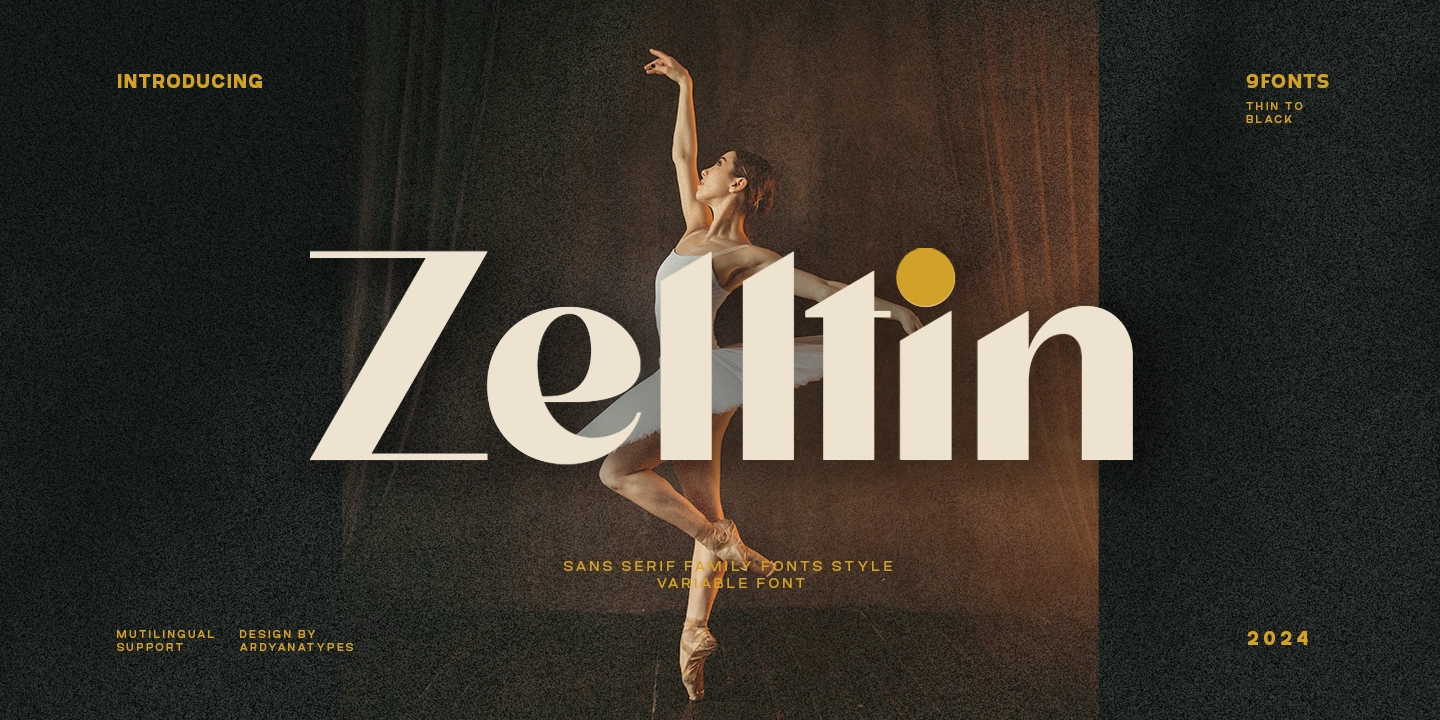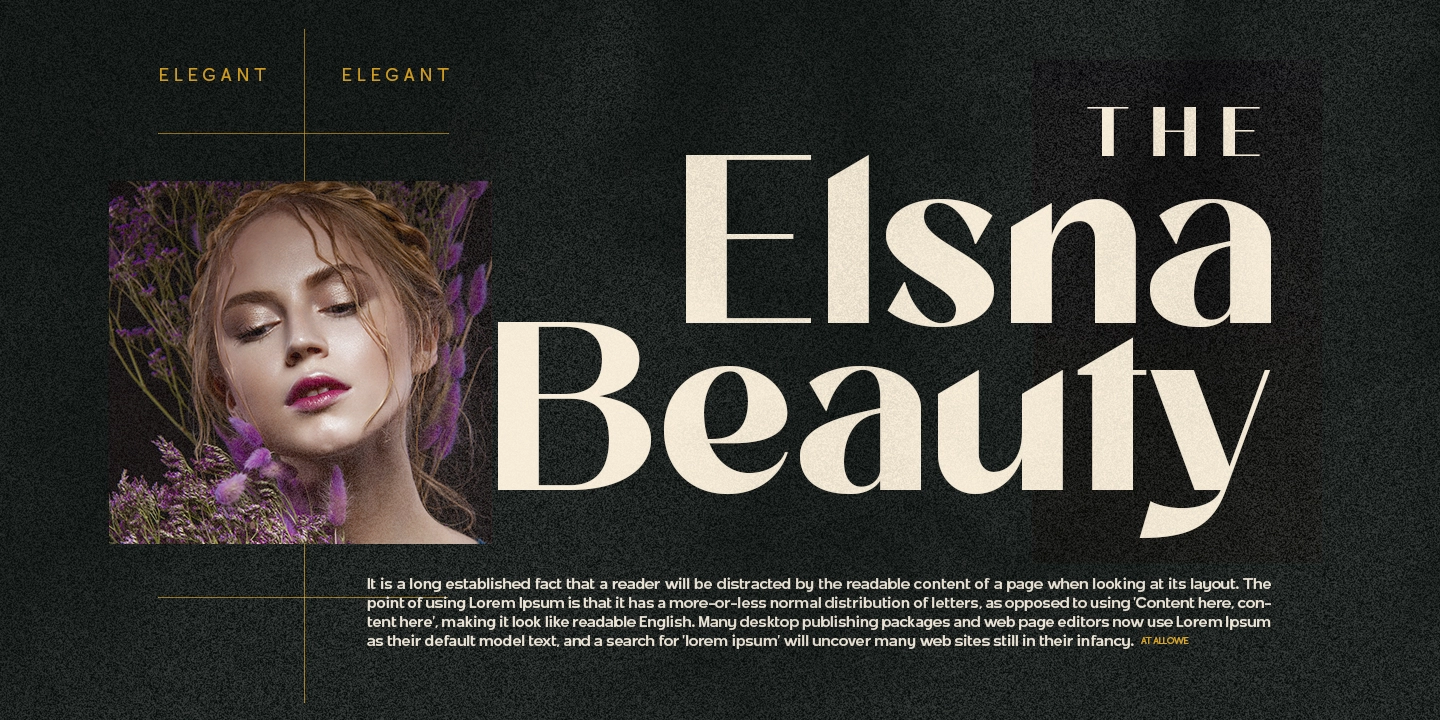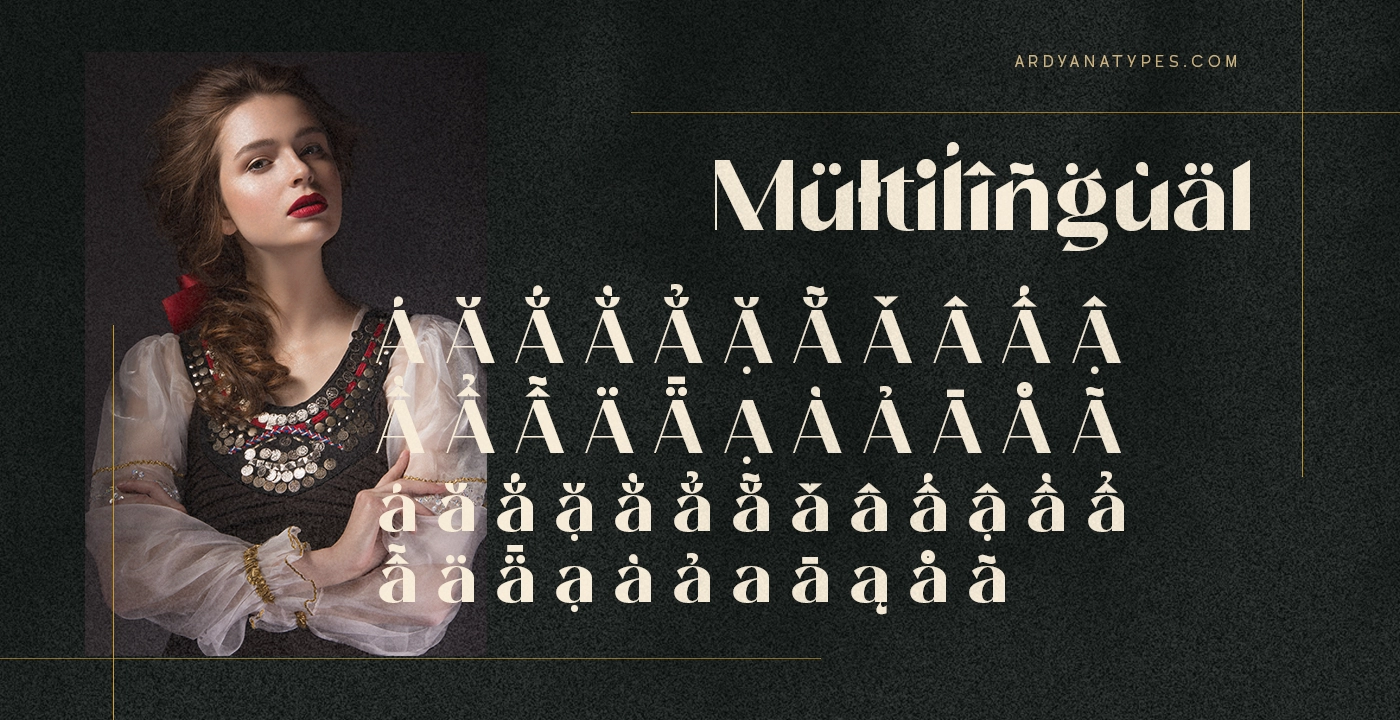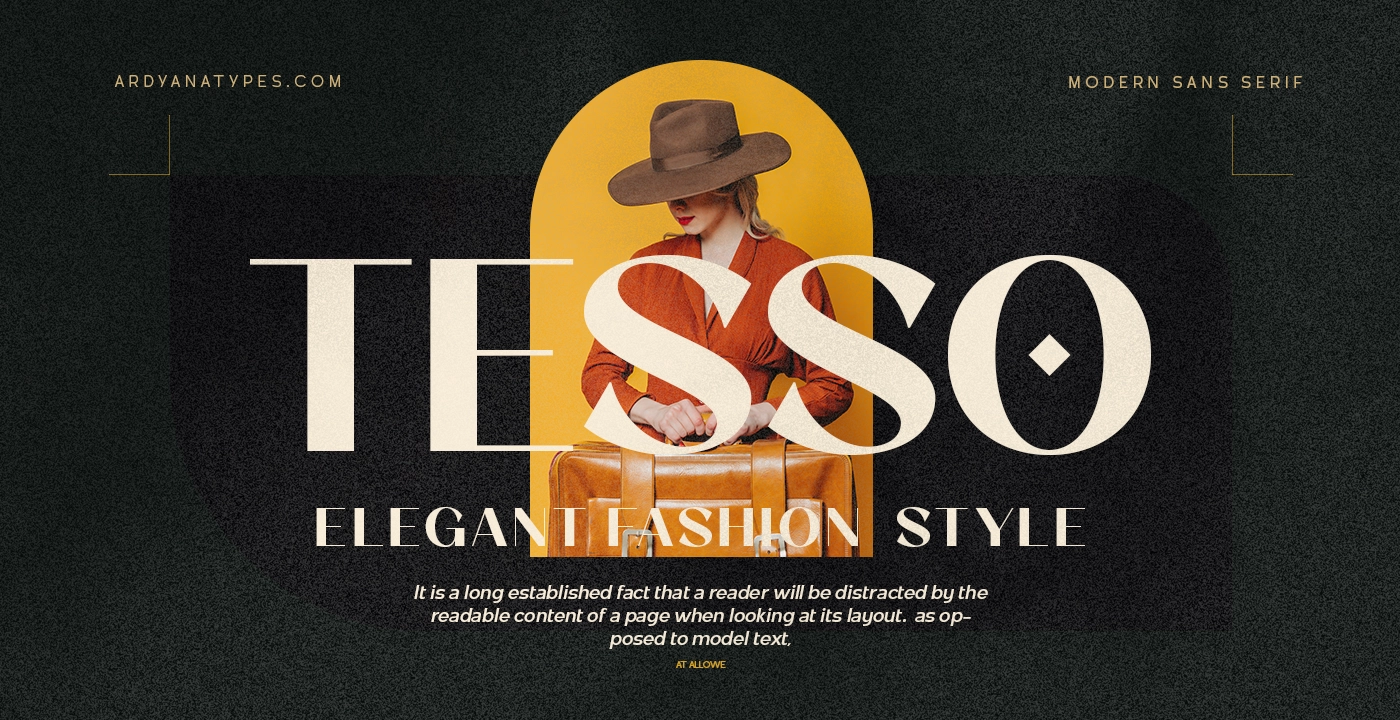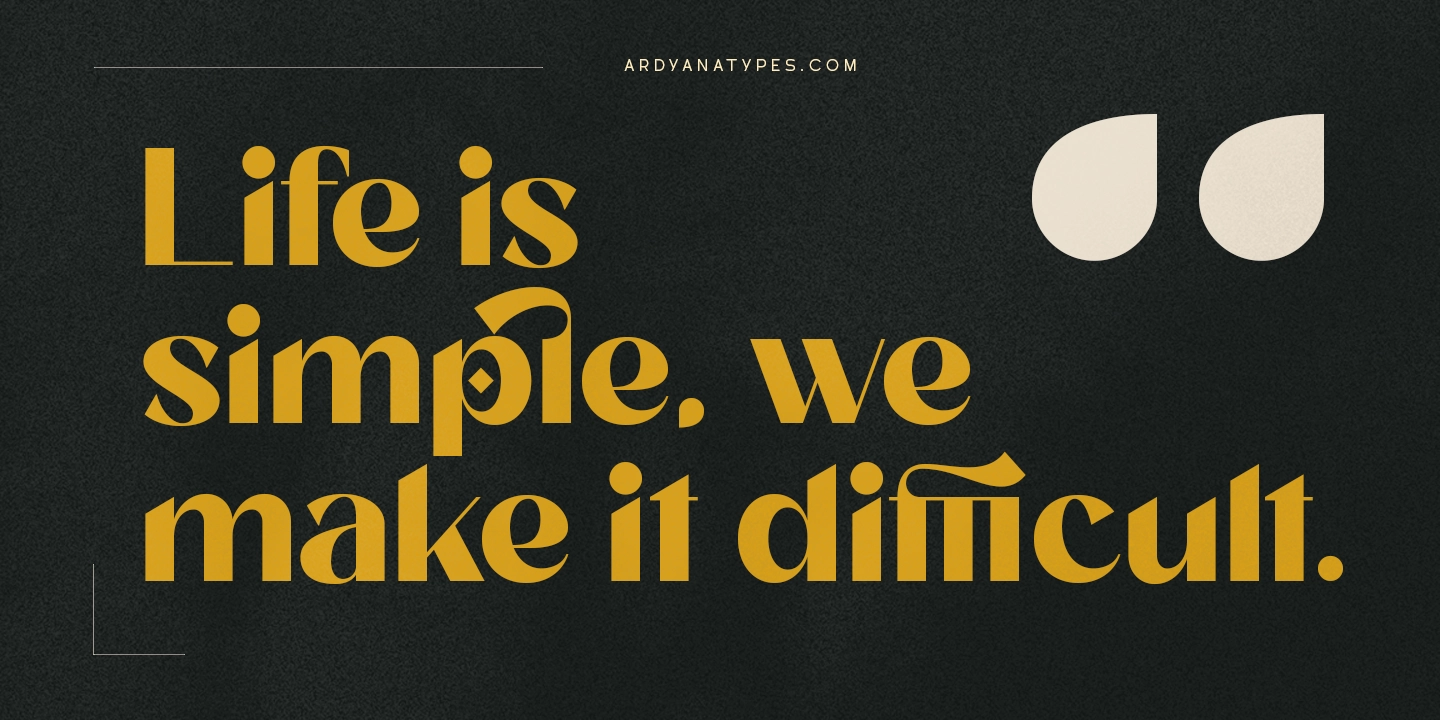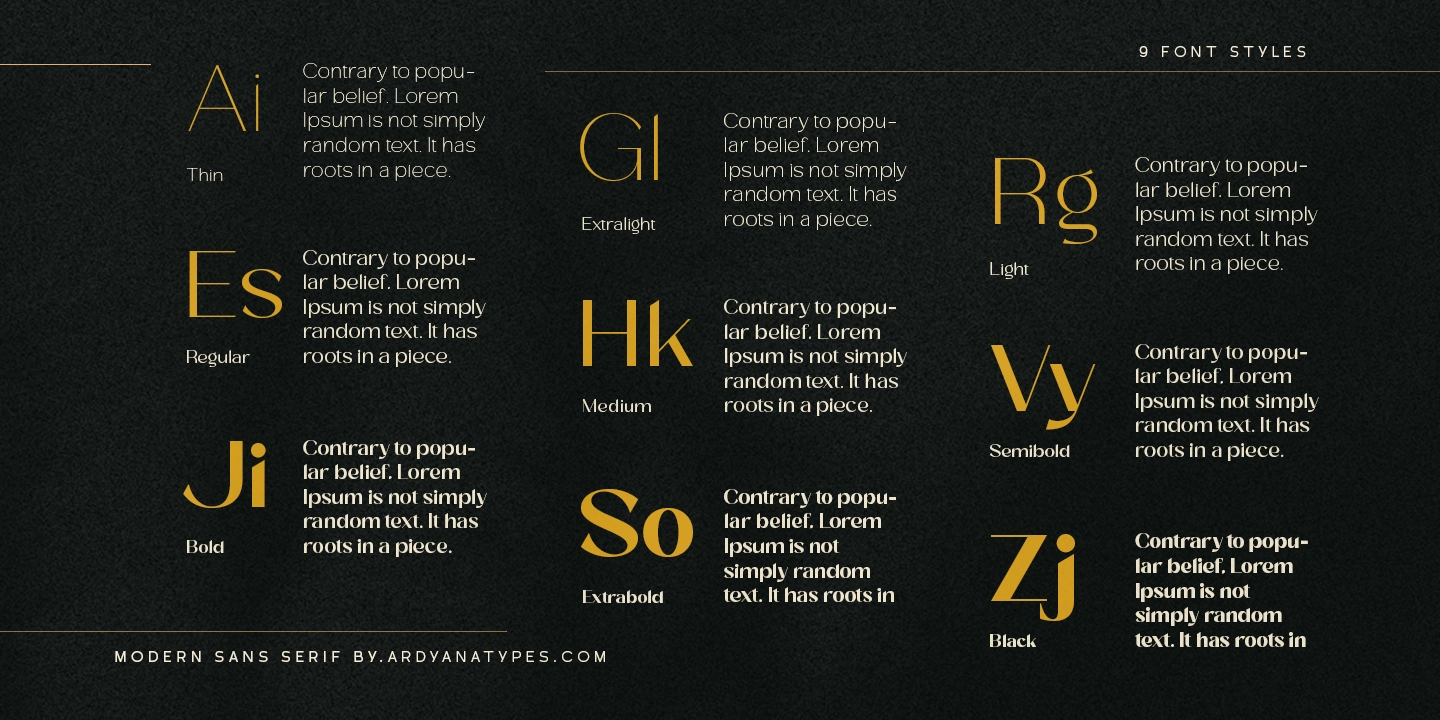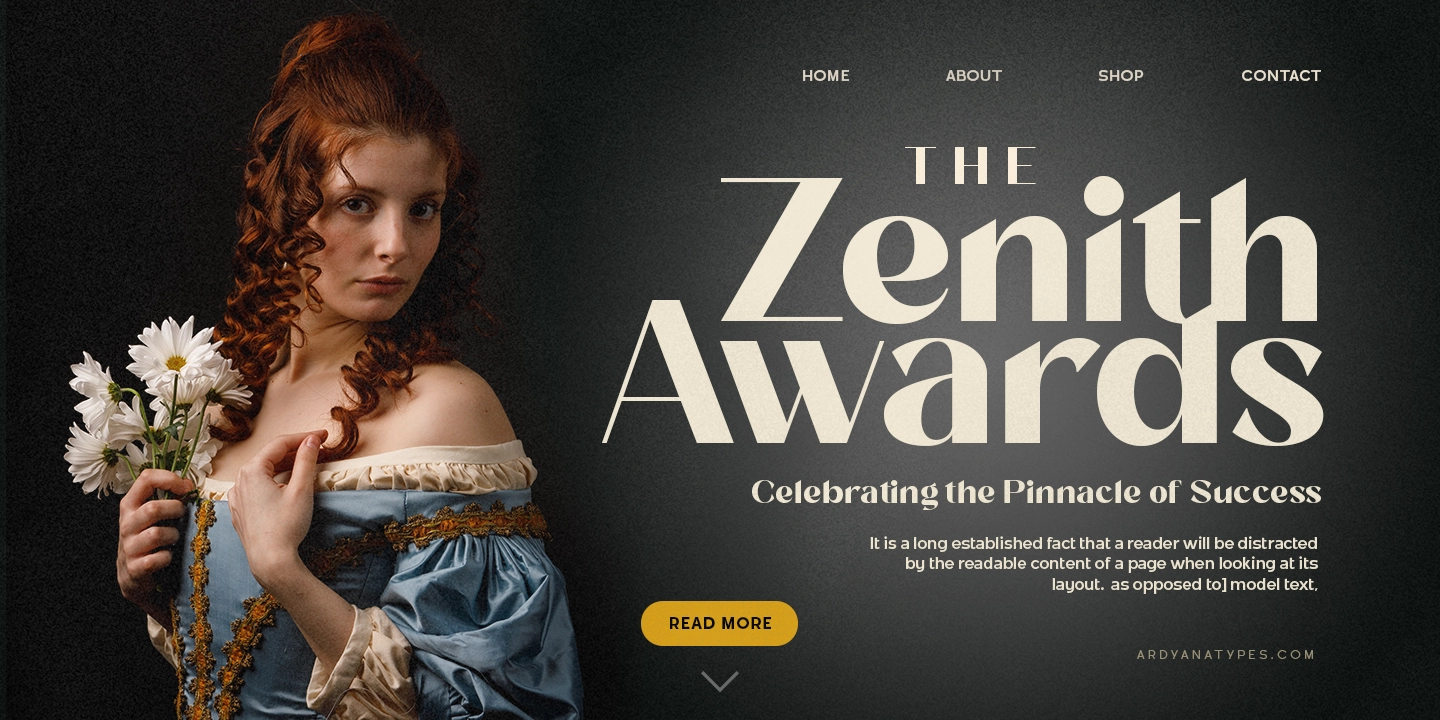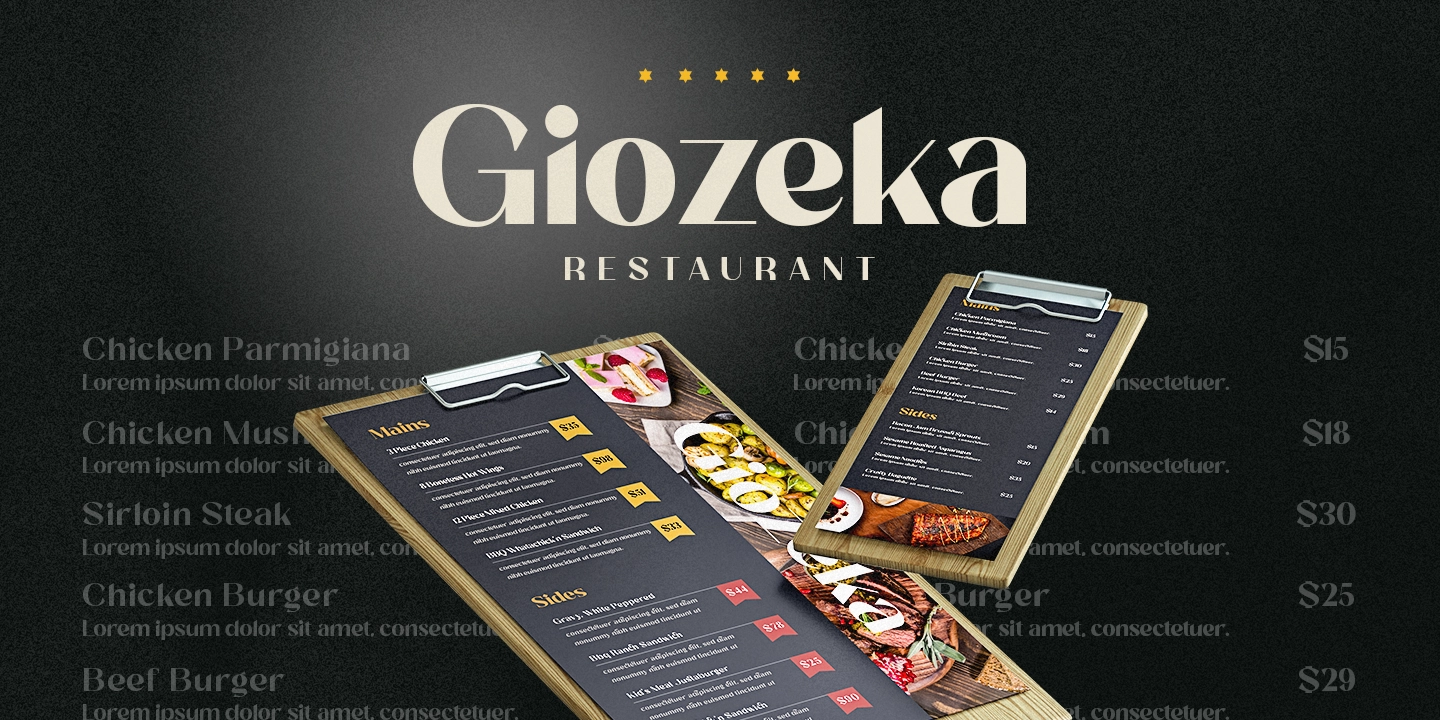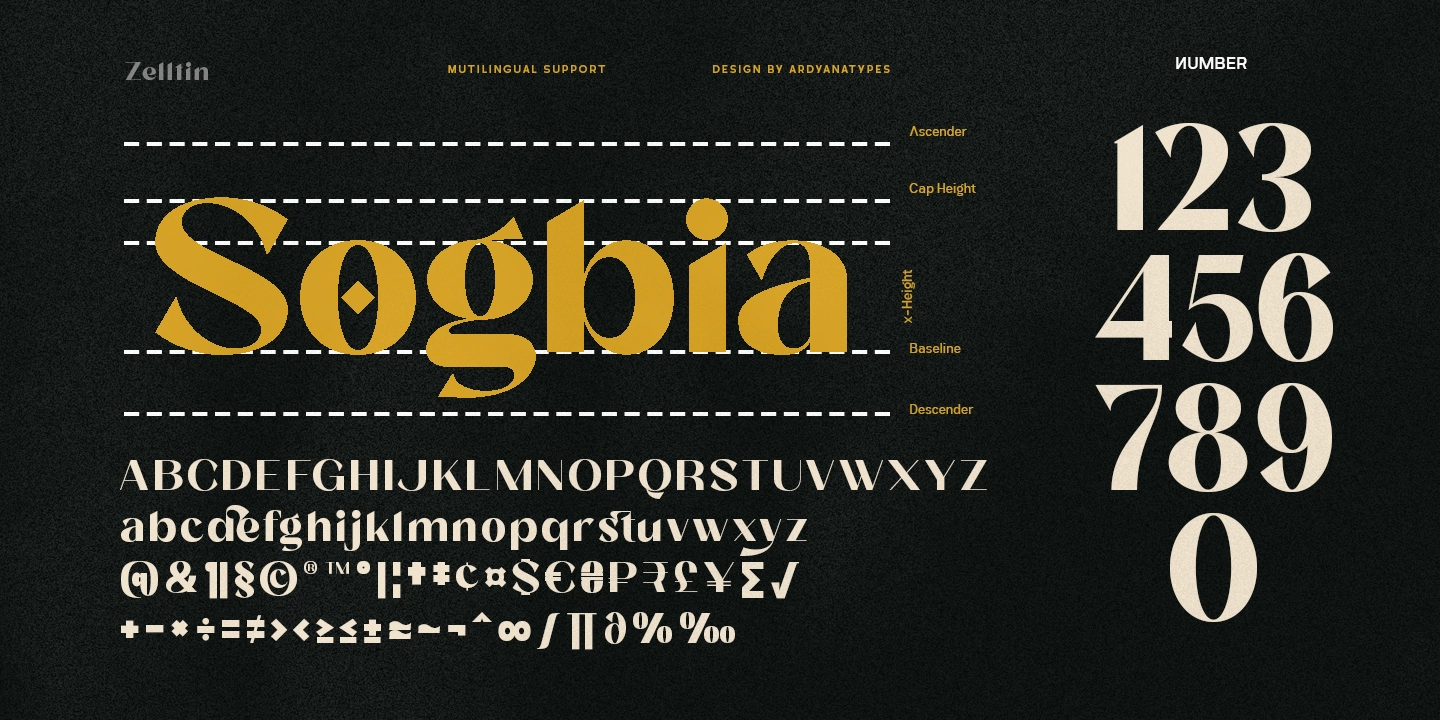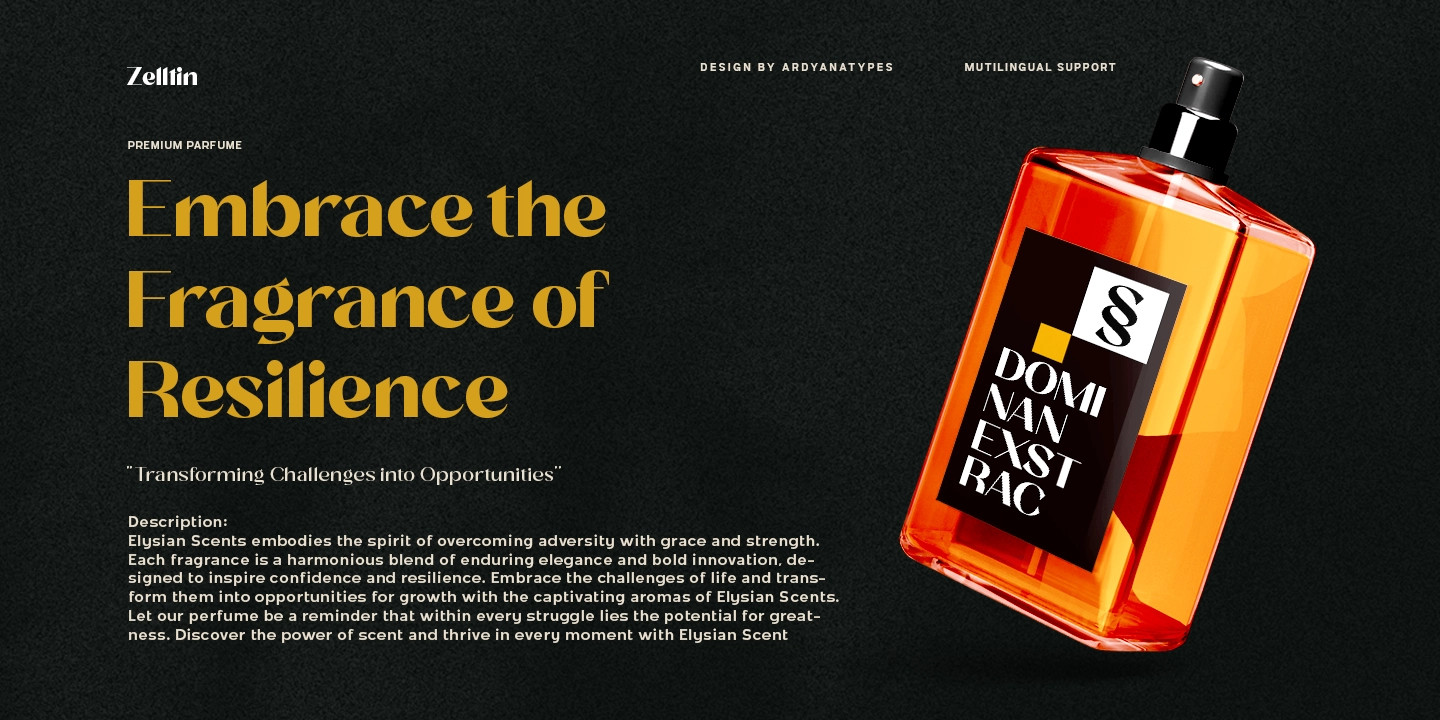
Zelltin
9 Styles
Meet Zelltin, a sans serif font that blends classic elegance with modern functionality. Specially designed for professional graphic designers, creative agencies, and the film industry, Zelltin is the ultimate choice for creating stunning and impactful designs.
With 9 font styles ranging from Thin to Black, along with advanced variable font features, Zelltin offers incredible flexibility for various typographic projects. Whether you're working on branding and logo design, editorial layouts, movie titles, or advertisement posters, this font ensures your work stands out with elegance and professionalism.
Why Choose Zelltin?
• Diverse Font Styles: From Thin to Black, Zelltin suits various design styles.
• Variable Font Technology: Easily adjust font weight and width to match your creative needs.
• Multilingual Support: Perfect for a global audience with full compatibility across languages.
Ideal Applications:
• Branding and logo design
• Editorial layouts
• Posters and ad campaigns
• Movie titles and cinematic projects
Whether you're looking for an elegant sans serif font or a versatile modern typeface, Zelltin is the perfect solution for your professional typography needs.
• ffi ffi
• ffl ffl
• cb cb
• ch ch
• ck ck
• cl cl
• da da
• dc dc
• de de
• dg dg
• di di
• do do
• dq dq
• eb eb
• eh eh
• ek ek
• el el
• et et
• fb fb
• fh fh
• fk fk
• fl fl
• ib ib
• ih ih
• ik ik
• il il
• la la
• lc lc
• le le
• lg lg
• li li
• lo lo
• lq lq
• ob ob
• oh oh
• ok ok
• ol ol
• ot ot
• pb pb
• ph ph
• pk pk
• pl pl
• pt pt
• sb sb
• sh sh
• sk sk
• sl sl